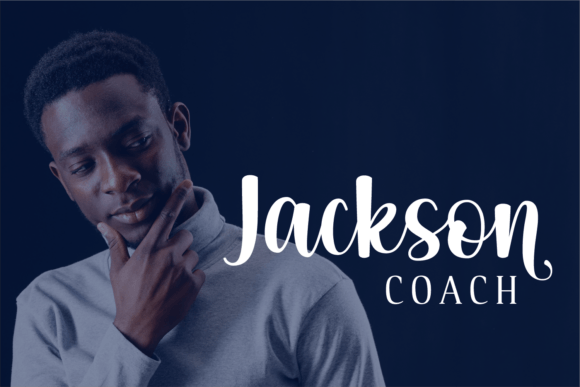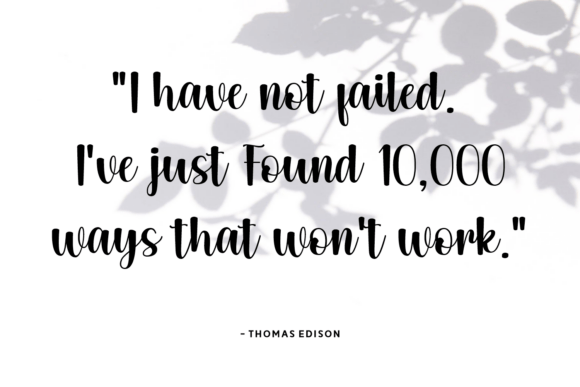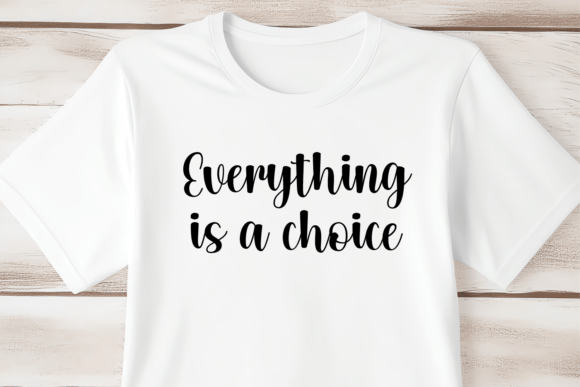
Introducing Coastin Font: Elevate Your Designs with Elegant Script
Are you looking for a font that adds a touch of sophistication and elegance to your designs? Look no further than Coastin Font. This stylish script font features smooth, flowing letters that are sure to make your projects stand out. With its elegant curves and soft lines, Coastin Font gives your text a beautiful, handwritten look that’s perfect for a variety of applications.
What Makes Coastin Font Special?
Coastin Font is a unique and versatile typeface that’s designed to bring a touch of class to your designs. Here are just a few of the features that make it special:
- Smooth, flowing letters: Coastin Font features smooth, connected letters that flow effortlessly across the page. This creates a beautiful, cohesive look that’s perfect for words, phrases, and sentences.
- Elegant curves and soft lines: The elegant curves and soft lines of Coastin Font give it a sophisticated, refined look that’s perfect for formal and informal designs alike.
- Handwritten look: Despite being a digital font, Coastin Font has a distinctly handwritten look that’s perfect for adding a personal touch to your designs.
Coastin Font is a versatile typeface that can be used for a wide range of projects, including:
- Invitations: Whether you’re planning a wedding, birthday party, or other special occasion, Coastin Font is the perfect choice for your invitations.
- Greeting cards: Add a touch of elegance to your greeting cards with Coastin Font, perfect for birthdays, holidays, and other special occasions.
- Branding and packaging: Use Coastin Font to add a touch of sophistication to your branding and packaging, perfect for businesses and products that want to stand out.
- Signage and displays: Coastin Font is also perfect for signage and displays, adding a touch of elegance to your storefront, restaurant, or other public space.
Why Choose Coastin Font?
With so many fonts to choose from, why should you choose Coastin Font? Here are just a few reasons:
- Unique and distinctive: Coastin Font is a unique and distinctive typeface that will help your designs stand out from the crowd.
- Elegant and sophisticated: Coastin Font adds a touch of elegance and sophistication to your designs, perfect for formal and informal projects alike.
- Easy to read: Despite its elegant curves and soft lines, Coastin Font is easy to read, making it perfect for body text and headlines.
Tips for Using Coastin Font
Here are a few tips for getting the most out of Coastin Font:
- Use it sparingly: Coastin Font is a bold and elegant typeface, so use it sparingly to add emphasis and interest to your designs.
- Pair it with contrasting fonts: Pair Coastin Font with contrasting fonts to create visual interest and hierarchy in your designs.
- Experiment with colors and textures: Experiment with different colors and textures to add depth and dimension to your designs.
Coastin Font is a stylish script font that’s perfect for designers and crafters looking to add a touch of elegance and sophistication to their projects. With its smooth, flowing letters and elegant curves, Coastin Font is sure to make your designs stand out. Whether you’re creating invitations, greeting cards, or other projects, Coastin Font is the perfect choice.